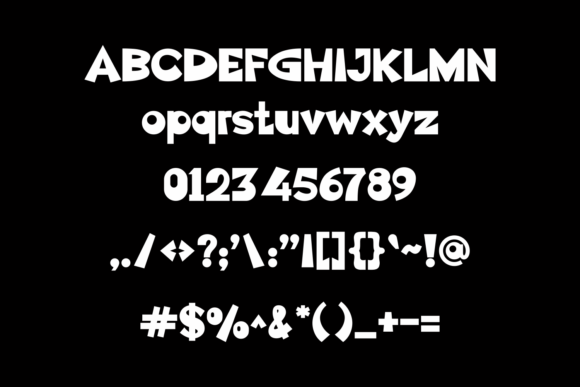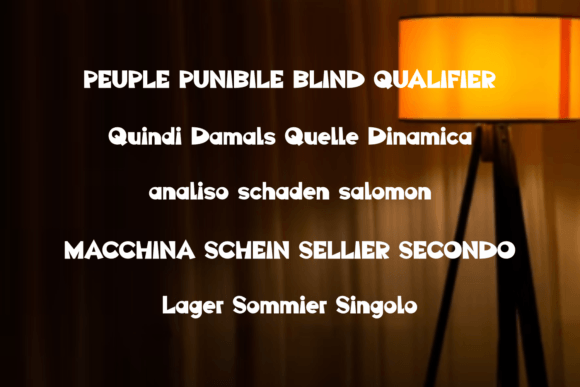
Gonead Font: Elevate Your Designs with a Cool and Unique Display Font
In the world of design, fonts play a crucial role in conveying messages, expressing emotions, and creating visual identities. With the vast array of fonts available, it can be challenging to find the perfect one that stands out from the crowd. However, if you’re looking for a cool and unique display font that can elevate your designs, look no further than Gonead Font. In this article, we’ll explore the features and benefits of Gonead Font, and why it’s an incredible asset to your font library.
What is Gonead Font?
Gonead Font is a modern, sans-serif display font designed to make a statement. Its unique and cool design makes it perfect for a wide range of applications, from branding and advertising to packaging and digital media. The font’s sleek lines, precise curves, and carefully crafted letterforms create a visually appealing and harmonious look that’s sure to grab attention.
Key Features of Gonead Font
So, what makes Gonead Font so special? Here are some of its key features:
- Unique Design: Gonead Font boasts a distinctive design that’s unlike any other font out there. Its modern and edgy look makes it perfect for designers who want to create something new and exciting.
- Highly Versatile: Gonead Font is incredibly versatile and can be used for a wide range of applications, from headlines and titles to logos and branding.
- Easy to Read: Despite its unique design, Gonead Font is easy to read, even at small sizes. This makes it perfect for use in digital media, such as websites and social media graphics.
- Multilingual Support: Gonead Font supports multiple languages, making it a great choice for designers who work with international clients or want to create multilingual designs.
Benefits of Using Gonead Font
So, why should you add Gonead Font to your font library? Here are some benefits of using this amazing font:
- Elevate Your Designs: Gonead Font has the potential to elevate any creation, making it perfect for designers who want to take their designs to the next level.
- Stand Out from the Crowd: With its unique design, Gonead Font can help you stand out from the crowd and create designs that grab attention.
- Save Time: Gonead Font is easy to use and can save you time when working on design projects. Its clear and legible design makes it easy to read and understand.
- Perfect for Branding: Gonead Font is perfect for branding and can help you create a strong visual identity for your clients or business.
How to Use Gonead Font
Using Gonead Font is easy. Here are some tips to get you started:
- Pair it with Other Fonts: Gonead Font works well when paired with other fonts. Experiment with different font combinations to create unique and interesting designs.
- Use it for Headlines: Gonead Font is perfect for headlines and titles. Use it to create attention-grabbing headings that draw the reader in.
- Experiment with Colors: Gonead Font looks great in a variety of colors. Experiment with different colors to find the perfect one for your design.
In conclusion, Gonead Font is a cool and unique display font that’s perfect for designers who want to elevate their designs. With its modern and edgy design, high versatility, and ease of use, Gonead Font is an incredible asset to your font library. Whether you’re working on a branding project, creating digital media, or designing packaging, Gonead Font is sure to make a statement. So, why not give it a try and see the difference it can make in your designs?